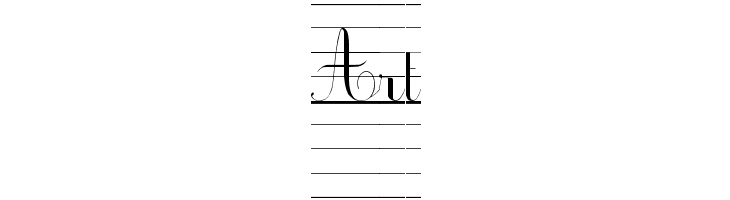
A bold, graffiti-inspired font with sharp angles and dynamic styling.
A playful, casual handwritten font with a natural, organic feel.
A bold, edgy font with a 3D shadow effect and angular, dynamic characters.
A playful, handwritten font with quirky, organic shapes and dynamic strokes.
A bold, brushstroke font with a wild and energetic style.
A classic serif font with elegant thin strokes and subtle contrast, ideal for formal and editorial use.
A playful, bold font with rounded strokes and whimsical shapes.
A bold, impactful display typeface with thick, block-like letterforms.
A lively and expressive handwritten font with fluid strokes and dynamic movement.
A bold, brush-style font with expressive, hand-painted strokes.
A smooth, flowing script font with elegant, connected letters and medium contrast.
A bold, geometric font with a modern, industrial feel.
A bold, rounded font with a strong, cohesive presence and friendly appeal.
A bold, angular font with a jagged, edgy style.
A bold, italic font with a dynamic, striped design.
A futuristic, geometric font with a monospaced, bold style.
A bold, italic font with a dynamic, striped design.
A bold, geometric font with a modern and slightly condensed style.
A bold, hand-drawn font with dynamic and edgy characteristics.
A bold, striped font with a modern and dynamic design.
A classic serif font with bold uppercase and italic lowercase letters, offering a timeless and elegant style.
A dynamic, handwritten font with bold, sweeping strokes and artistic flair.
A bold, cursive script font with dynamic and expressive strokes.
A bold, expressive handwritten font with dynamic curves.